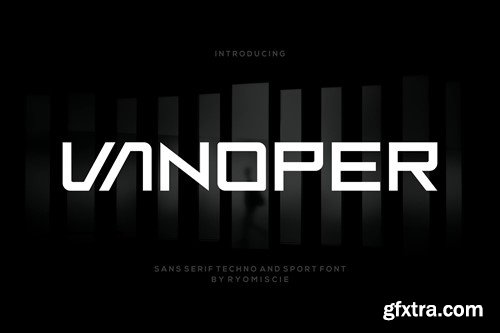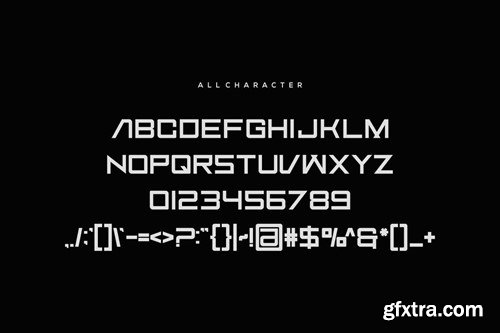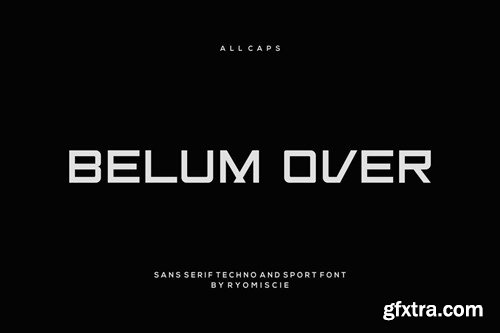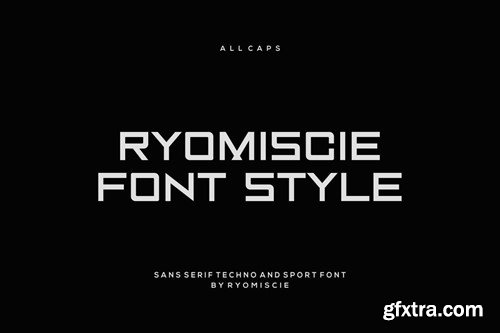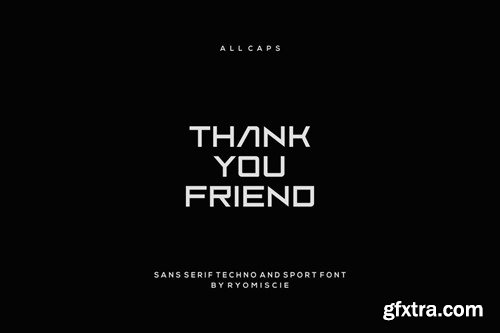
Vanoper - Sans Serif Techno And Sport Font
Introducing our new product Vanoper - Sans Serif Techno And Sport Font Vanoper - Modern Font is a bold and authentic display font. The font is suitable for any branding project like logo, t-shirt printing, esport, and many more. outstanding in a wide range of contexts. availlable